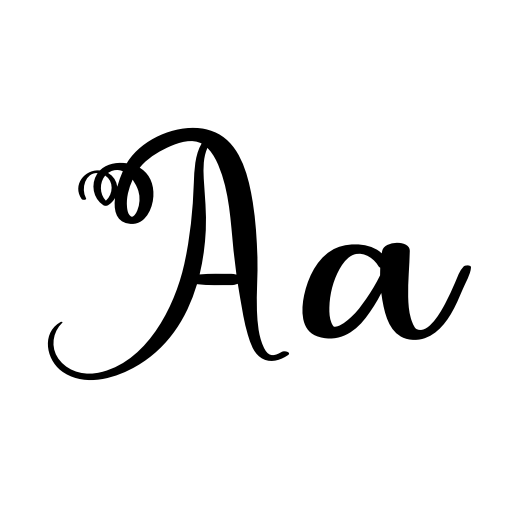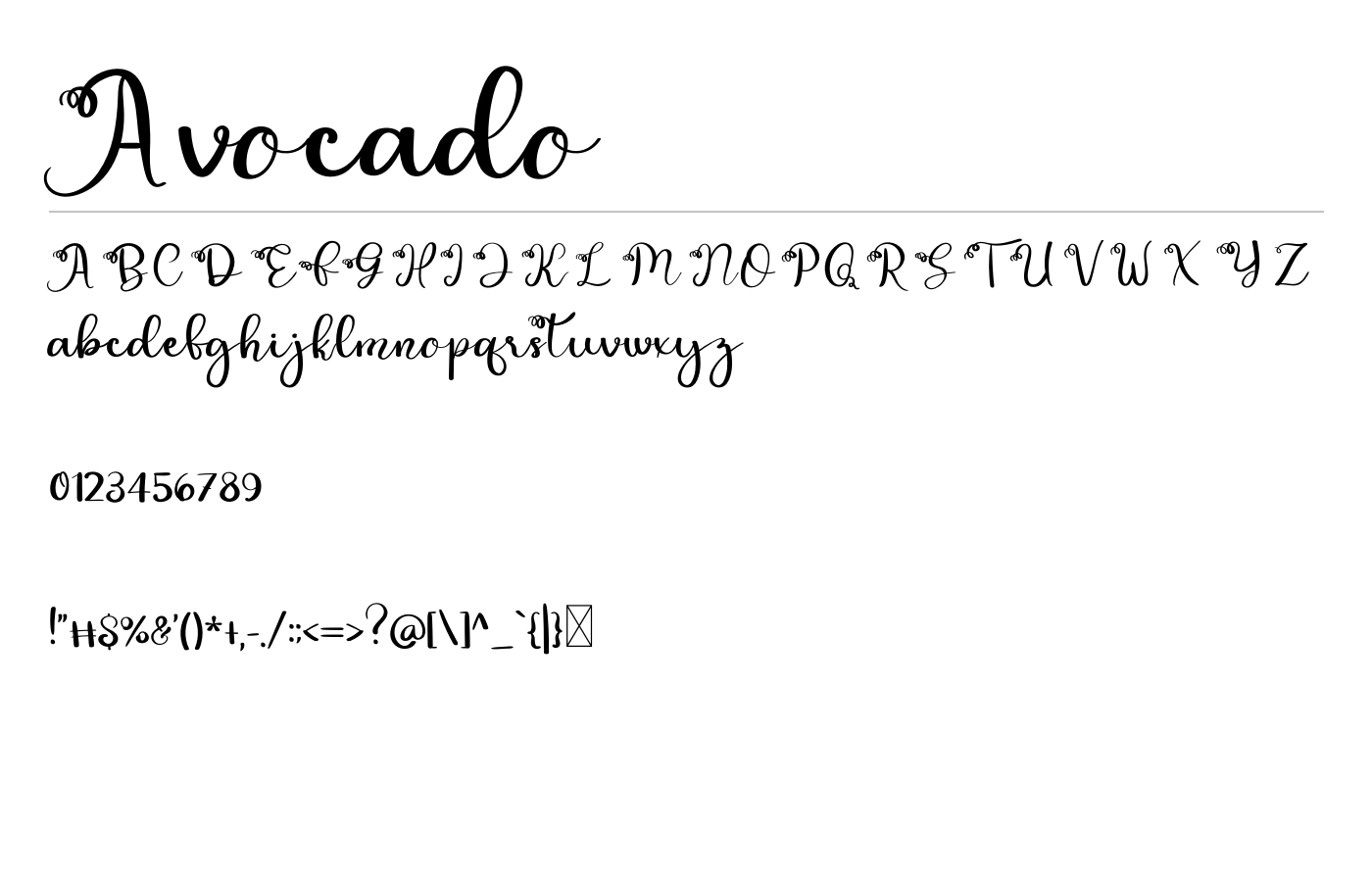
Avocado is a playful and elegant script font featuring a smooth, flowing design with decorative swirls on uppercase letters, giving it a charming and whimsical feel. Its moderate weight and balanced spacing make it perfect for inviting headlines, logos, or branding that seeks a friendly yet stylish touch. This font works well for creative projects, packaging, and invitations where a unique, handwritten personality is desired.
Avocado Font